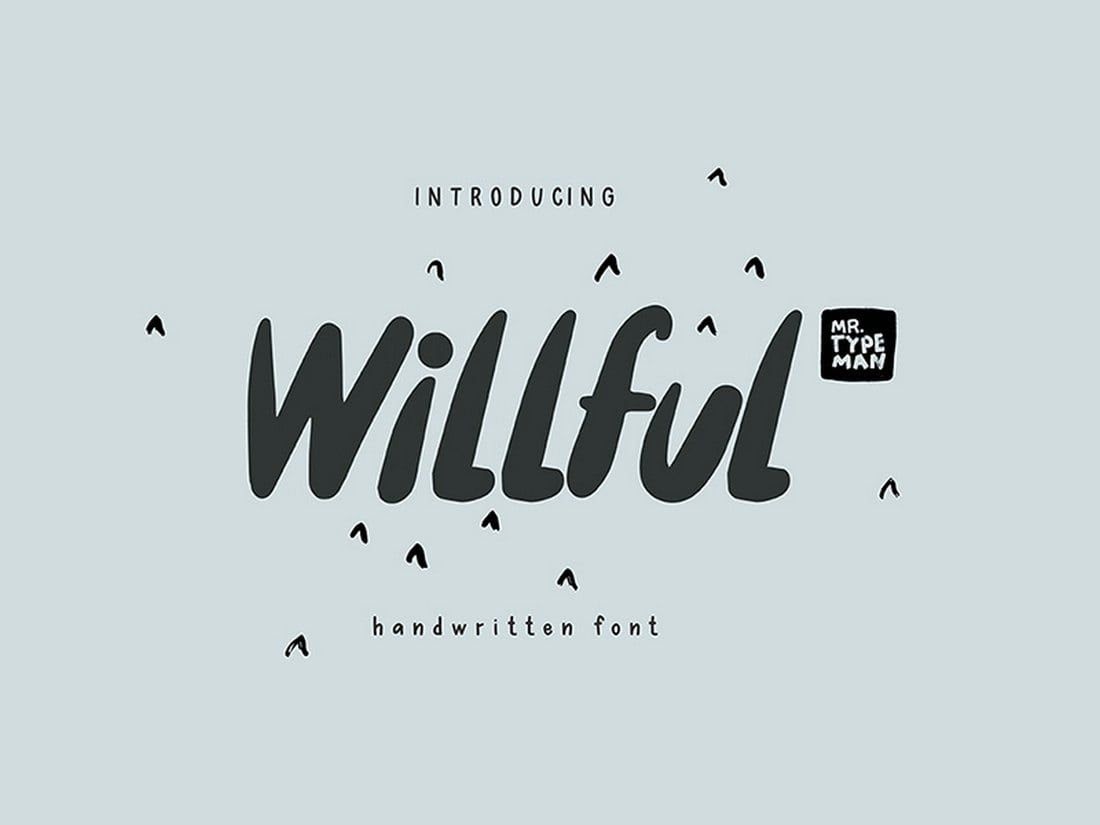
Best fonts for posters 2021. Clean, contemporary and enduringly stylish, sans serif are the workhorse of any designer’s font catalogue. Of course, you look at the title to figure out what it’s. 10 best professional fonts for logo design clean.
October 25, 2021 post a comment click to find the best 2,079 free fonts in the poster style. To see some of our favorite examples, have a look at our collection of free fonts. Here are 24 best fonts that you can use in 2021:
Serif fonts are historically perceived to be more readable. It comes in a corroded style set of letters as well. Download 45 best fonts for 2021.
This font is the perfect example of a thick bold font. The best sports fonts for athletic, gym & college designs The font can be best used for large headings as well as posters, magazines, or logo designs.
60+ best big, poster fonts of 2021 poster fonts, blue. So, a serif font is a font that has serifs; League gothic the font has four different weights, all available under the open source license that allows you to use league gothic for free on all your personal and commercial projects.
Onamura is a beautiful free font that comes with a unique design. What’s the first thing you do when you look at a poster or someone hands you a flyer? The style of font will depend on the project it’s being used for.
As a rule of thumb, serif fonts have a more traditional and established look. 32+ best movie poster font gallery / collection free download we all have a movie buff inside of us, and there are certain fonts that have been used in movie. Cul de sac font cul de sac font 3.
Serif is usually easier and faster to read for. The font is available in 4 different weights and 4 italic versions. Think about your brand identity, target audience, and the overall message you aim to deliver through the poster and pick a font that helps highlight all those aspects in the title.
When we created this collection of lettering, we intended to cover all categories of poster art and include both formal and informal fonts that can be used to make headers, titles, and text for different banner types. 20+ best fonts for posters good fonts for posters. 30+ best fonts for posters brush font, cool fonts.
The letter a is shaped without having a rule and the letter e, which has three parallel horizontal lines, is one of the. 10 best professional fonts for logo design clean. 30+ best fonts for posters brush font, cool fonts.
With 2021 almost arriving at our doorsteps, it is important to buckle up for new fonts that will most likely be widely used and recognized. The font is completely free to use with personal and commercial projects. Let’s take a look in more detail at some of the best free fonts of 2021:
Font designers uses brand new technology that makes way for more authentic looking fonts and is sure to grab the attention of customers and designers alike.each letter was carefully designed dozens of times until deemed perfect, and then edited to get. It can also be used against lighter colors for a fun, retro feel. Seltons svg font signature fonts, typography quotes.
60+ best big, poster fonts of 2021 poster fonts, blue. The font also works great for retro 80s style designs as well as urban designs. It features a chunky letter design that will look incredible on your poster and flyer designs.
Breathe typeface in 2020 cool fonts, good fonts for. You can use it for both headings and. The font comes with a set of beautiful, tall, and slightly rounded set of characters.